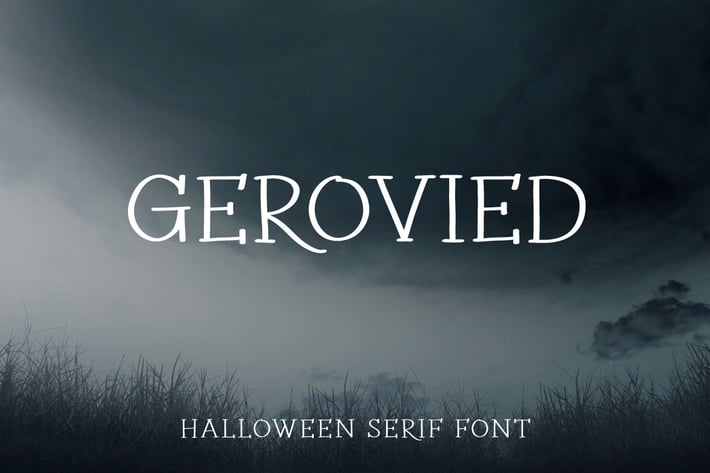
Gerovied - Halloween Serif Font
Hello! Gerovied is a halloween display font.
Gerovied can be used in any works such as comic book, poster, school, flyer, book title, advertisement, social media content, logo and many more.